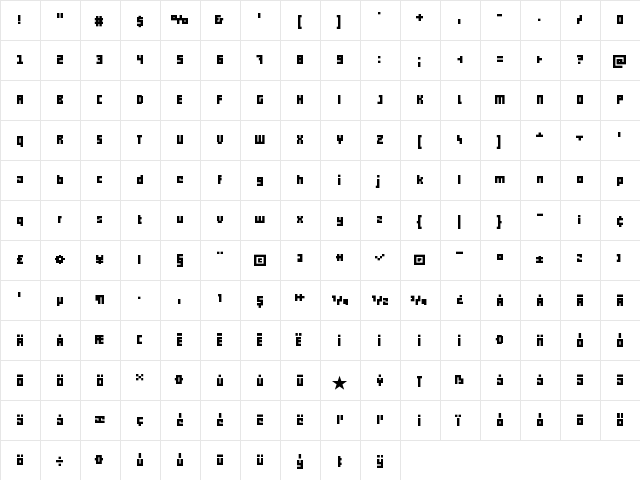
pxll Regular
| Foundry | Elvis Mehmedovic |
| Designer | Elvis Mehmedovic |
Design Context for pxll Typeface
pxll is a composed and adaptable typeface that performs quietly and consistently across a wide range of design contexts.